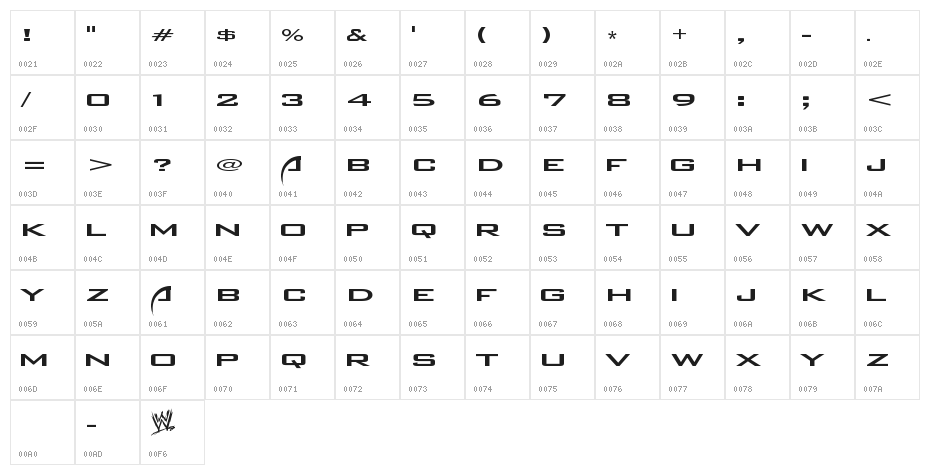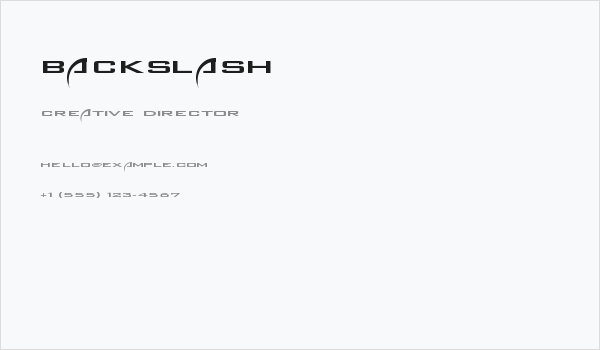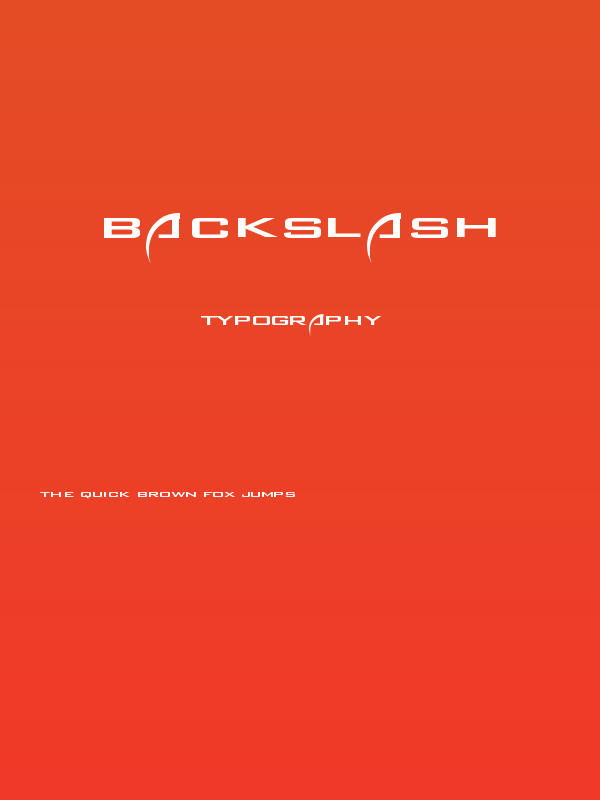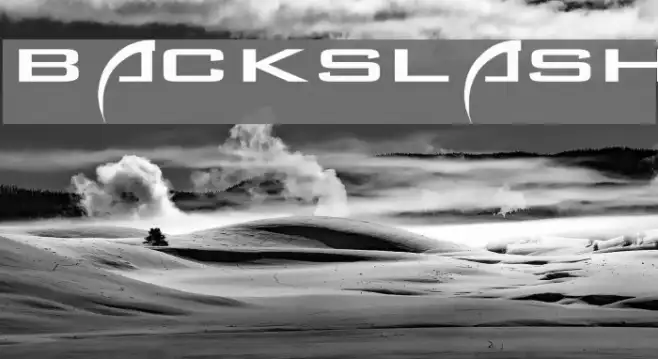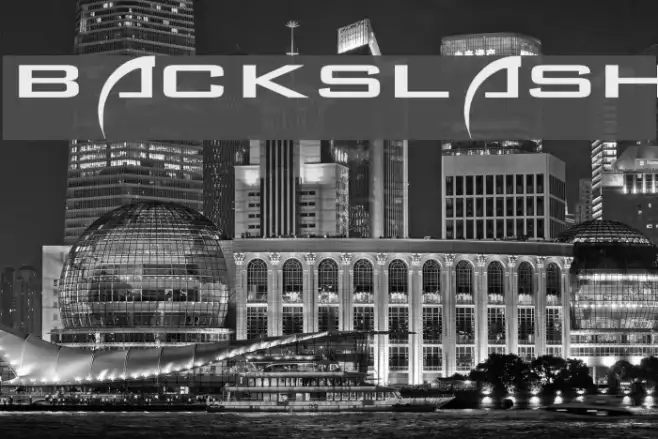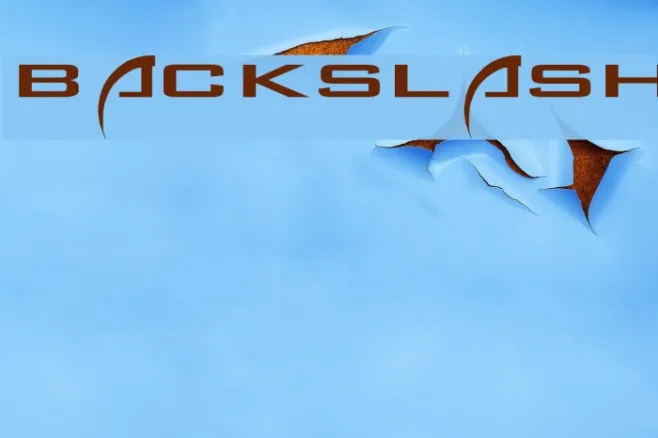
Backslash Font
Backslash Description
This font features a futuristic and sleek design, characterized by sharp angles and clean lines. The uppercase letters are bold and dynamic, with a distinct geometric style that gives them a modern and technological feel. The lowercase letters maintain the same angular aesthetic, ensuring consistency throughout the typeface. The numerals are equally bold, with a uniform width that complements the overall design. Special characters are designed with the same attention to detail, making them suitable for a variety of uses. The font's unique style makes it ideal for projects that require a contemporary and edgy look.
| Proposed Projects | Ideal for technology branding, sci-fi posters, video game titles, and modern advertising. |